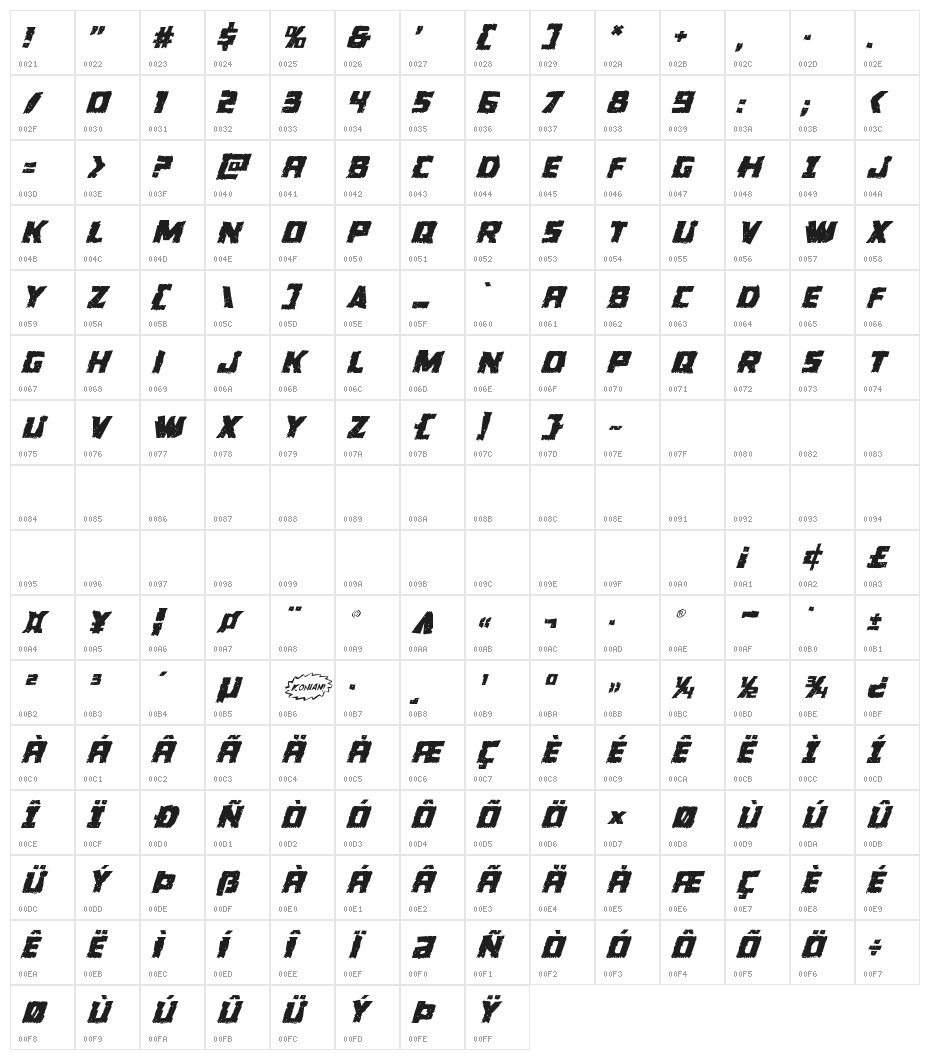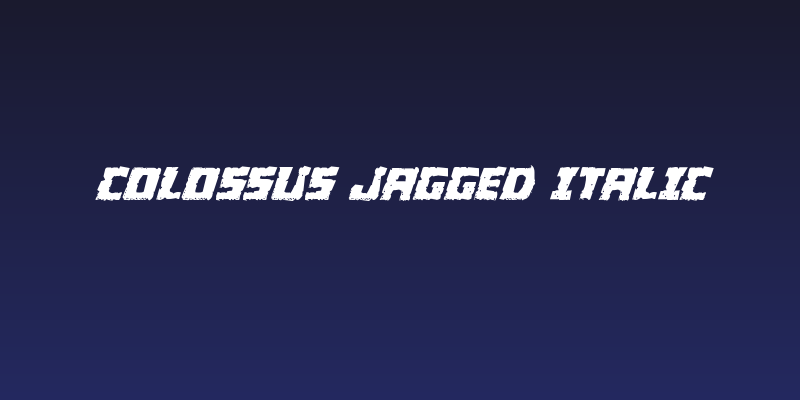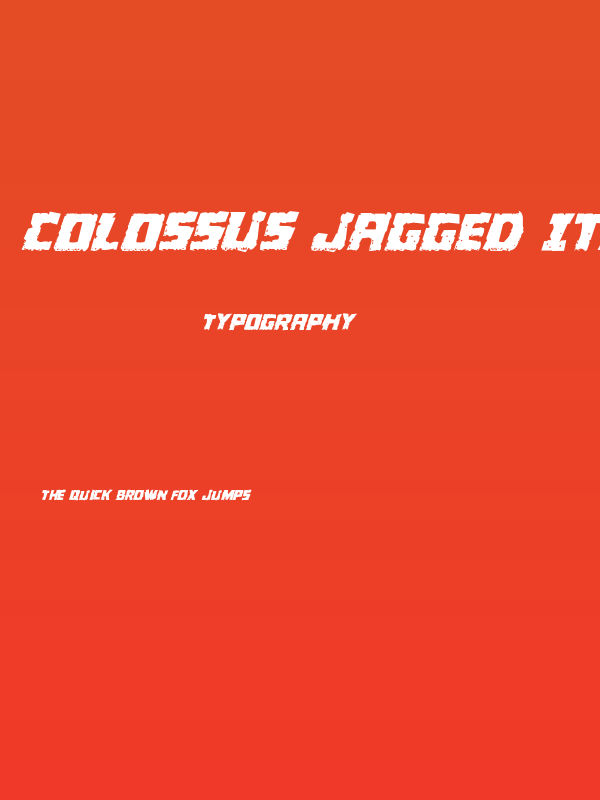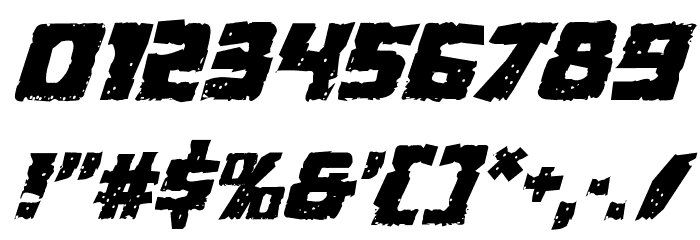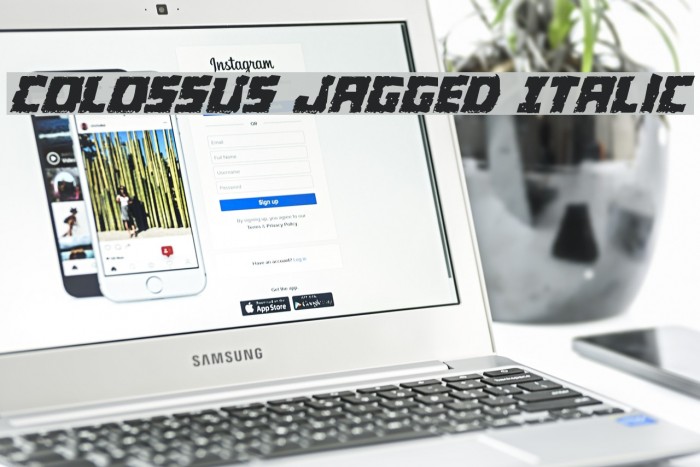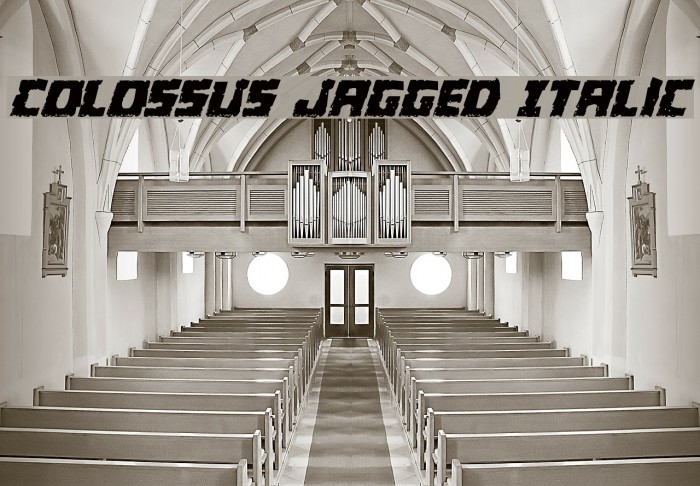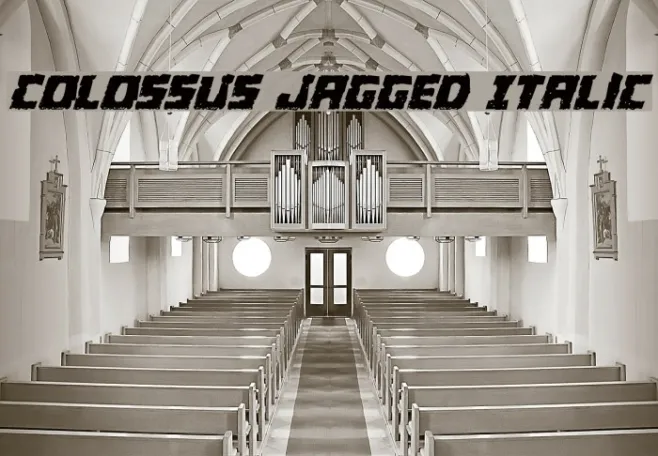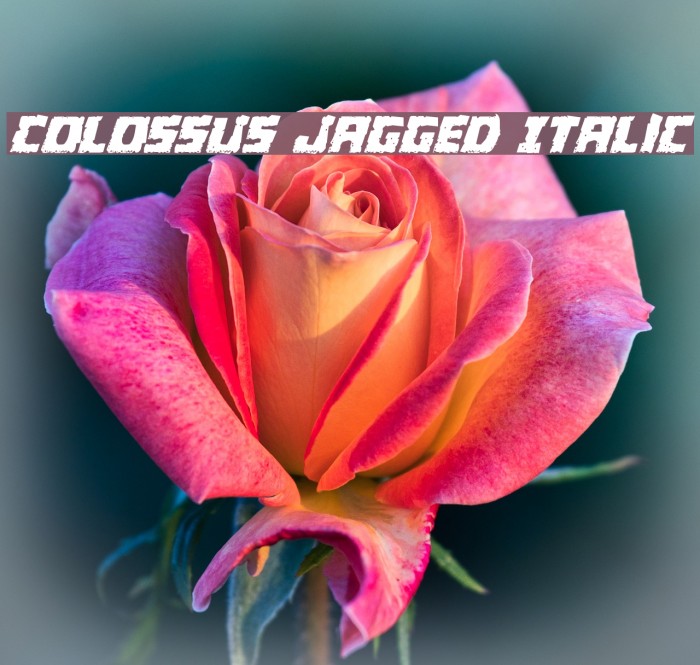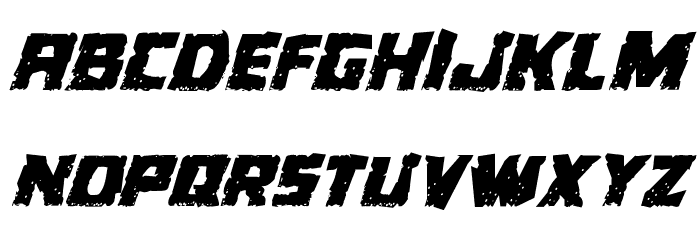
Colossus Jagged Italic Font
Colossus Jagged Italic Description
This font features a bold, jagged style with a distinct italic slant, giving it an aggressive and dynamic appearance. The characters are heavily textured, resembling a rough, distressed look that adds a sense of movement and energy. The uppercase and lowercase letters maintain a consistent design, with sharp edges and irregular outlines that create a rugged aesthetic. The numerals and special characters follow the same jagged theme, ensuring a cohesive look across all glyphs. This font's unique style makes it stand out, ideal for projects that require a bold and impactful visual statement.
| Proposed Projects | Ideal for posters, album covers, video game graphics, and branding that requires a bold, edgy look. |